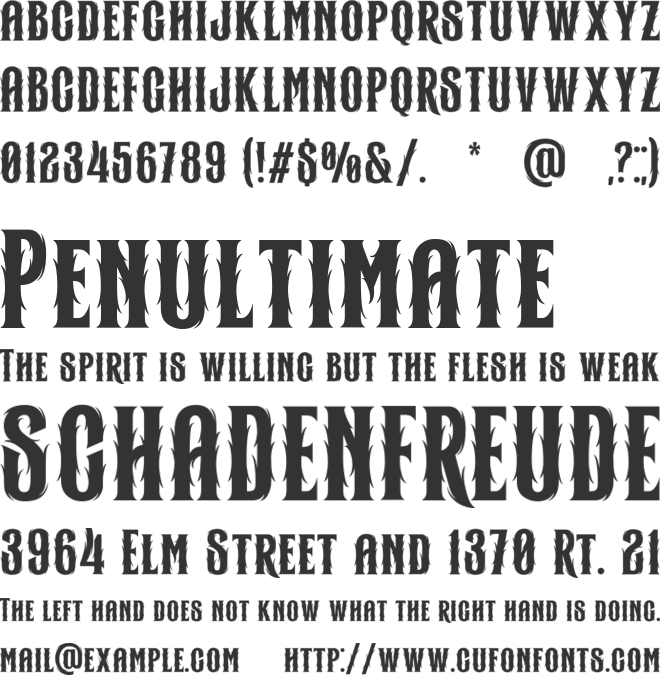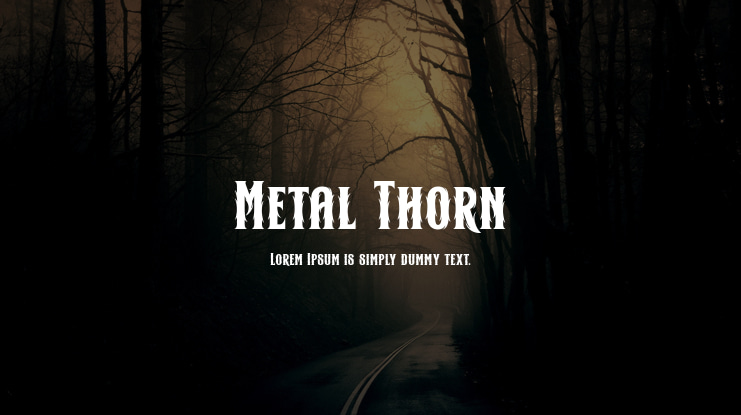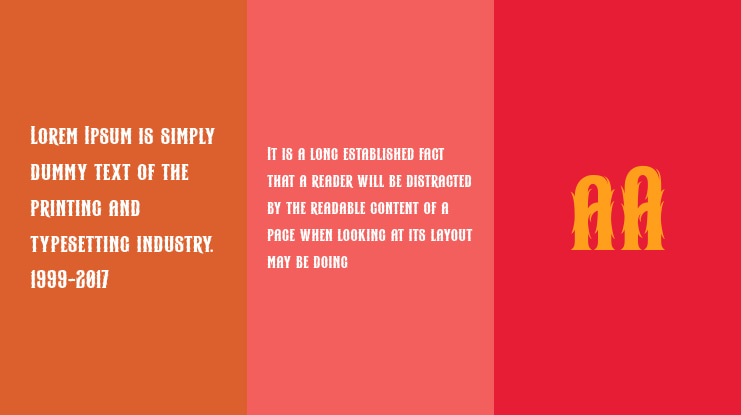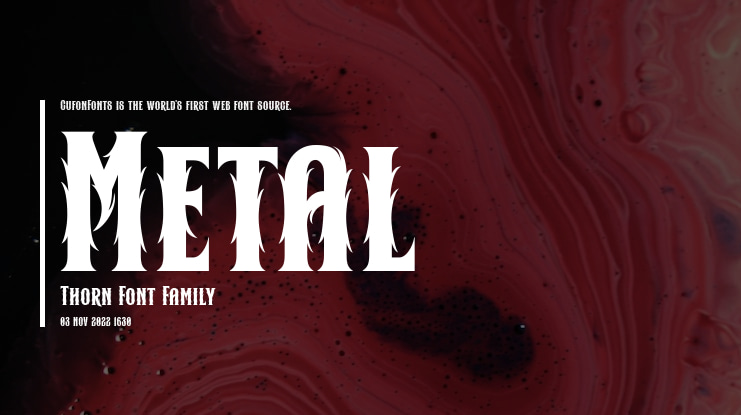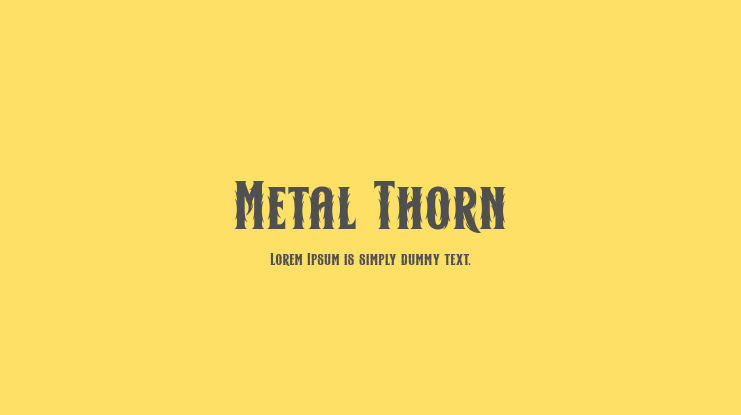
Metal Thorn Font
Introducing "Metal Thorn" – a font that seamlessly blends the raw power of metal with the edgy intensity of thorns, all wrapped up in a cutting-edge cyber aesthetic. This font is a manifestation of metal brutalism, designed to make a bold statement with its fierce and avant-garde personality.